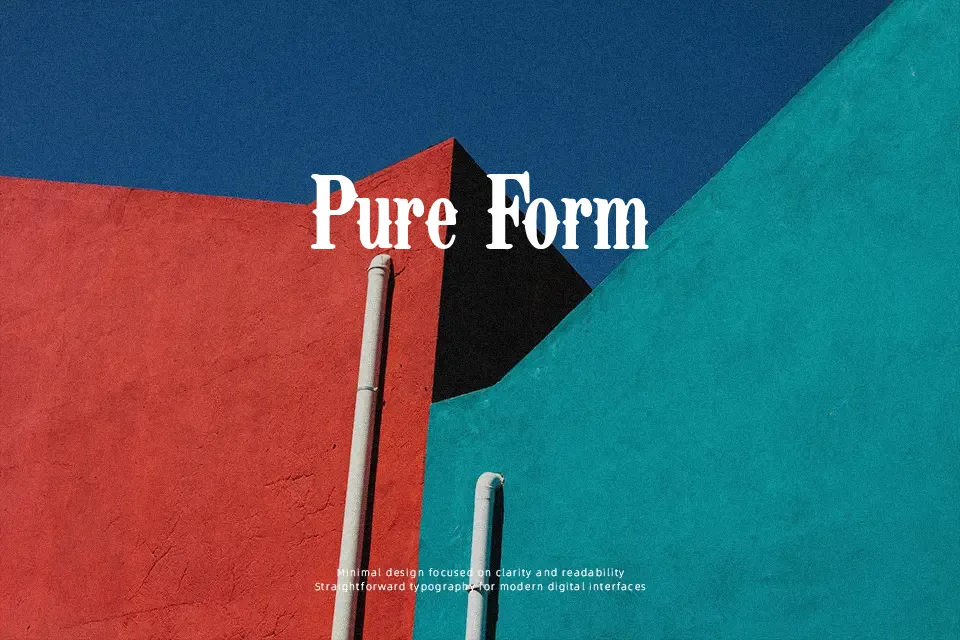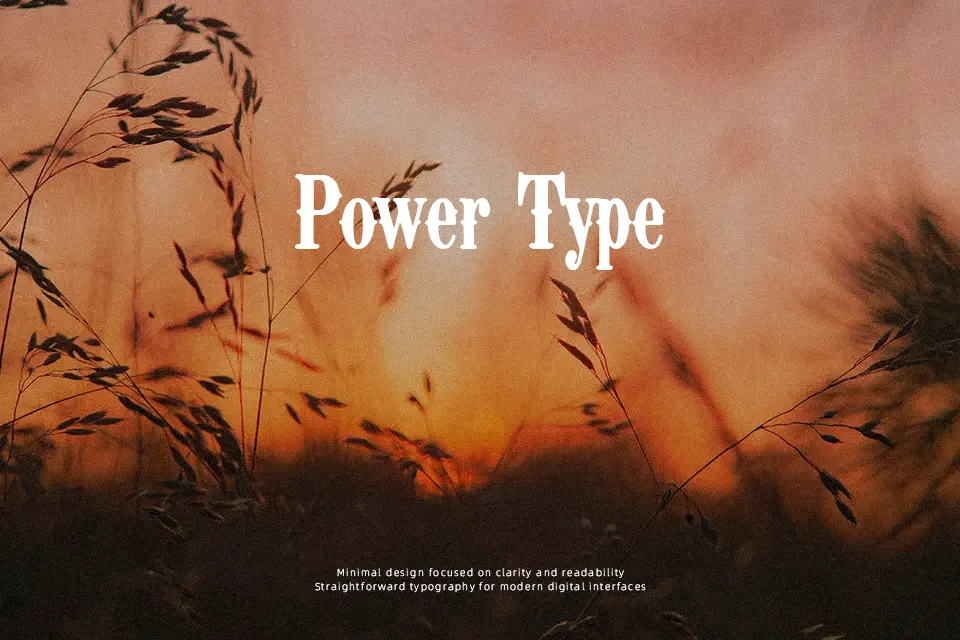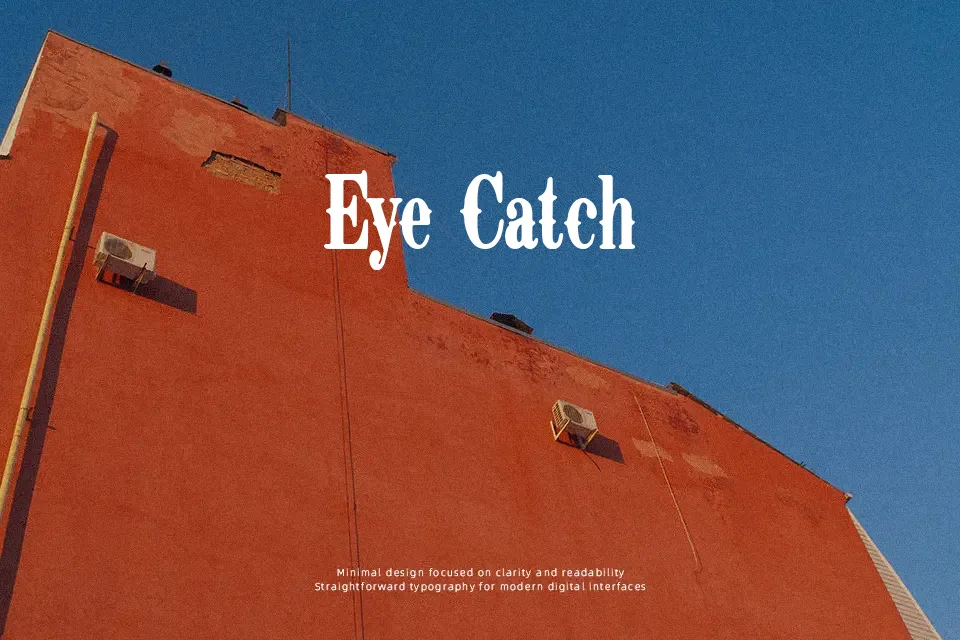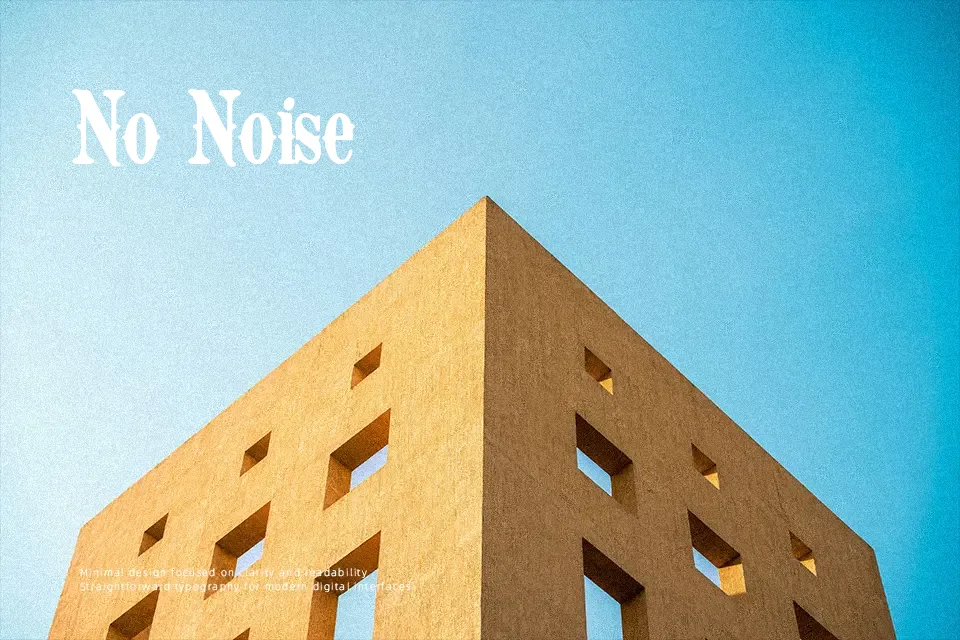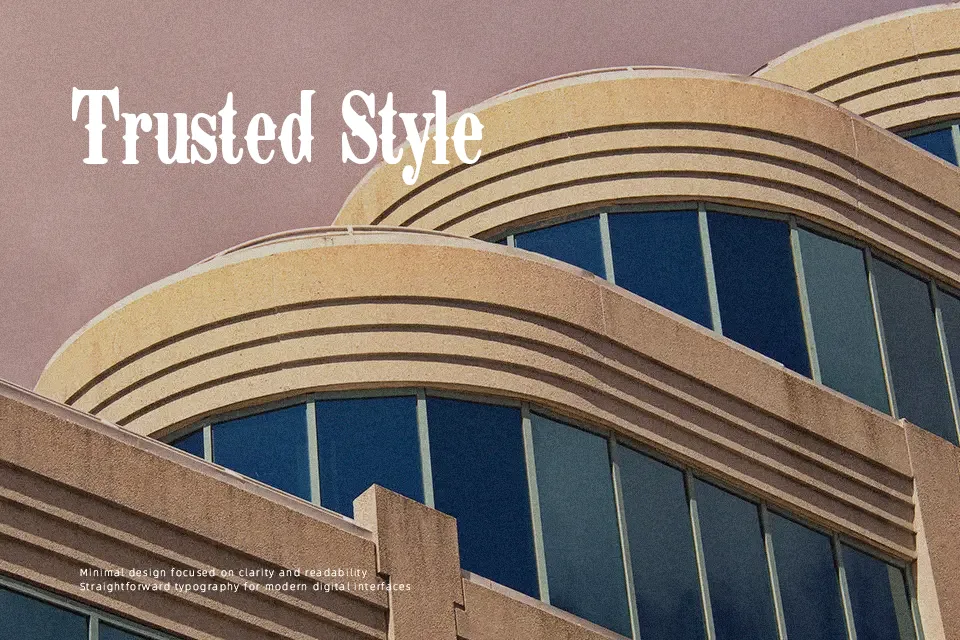
The Bandido Font
The Bandido Font commands immediate attention through sturdy slab serifs, heavy block proportions, and sharp center spurs along the vertical stems. Its uppercase characters exhibit generous widths with stable horizontal baselines, while the generous stroke weight ensures high visibility across large display formats. Character spacing remains moderately wide to prevent the dense geometric serifs from colliding in punchy headlines. However, the thick monoline stems and decorative side spurs cause internal counters to close up rapidly when scaled down, rendering the letterforms illegible in continuous body copy.
Best For: saloon style storefront signs, rustic beverage packaging, rodeo event posters, western movie title cards
Not Ideal For: dense body paragraphs, technical instruction manuals, mobile interface menus, multi-column print editorial